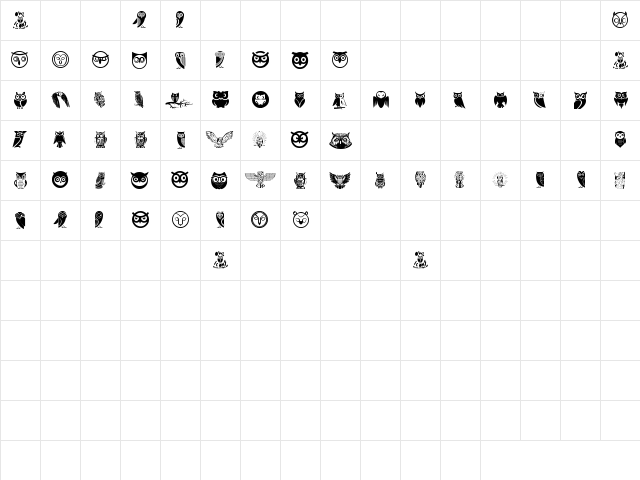
Owl Regular
| Designer | Woodcutter Manero |
Design Context for Owl Typeface
Owl is a composed and adaptable typeface that performs quietly and consistently across a wide range of design contexts.